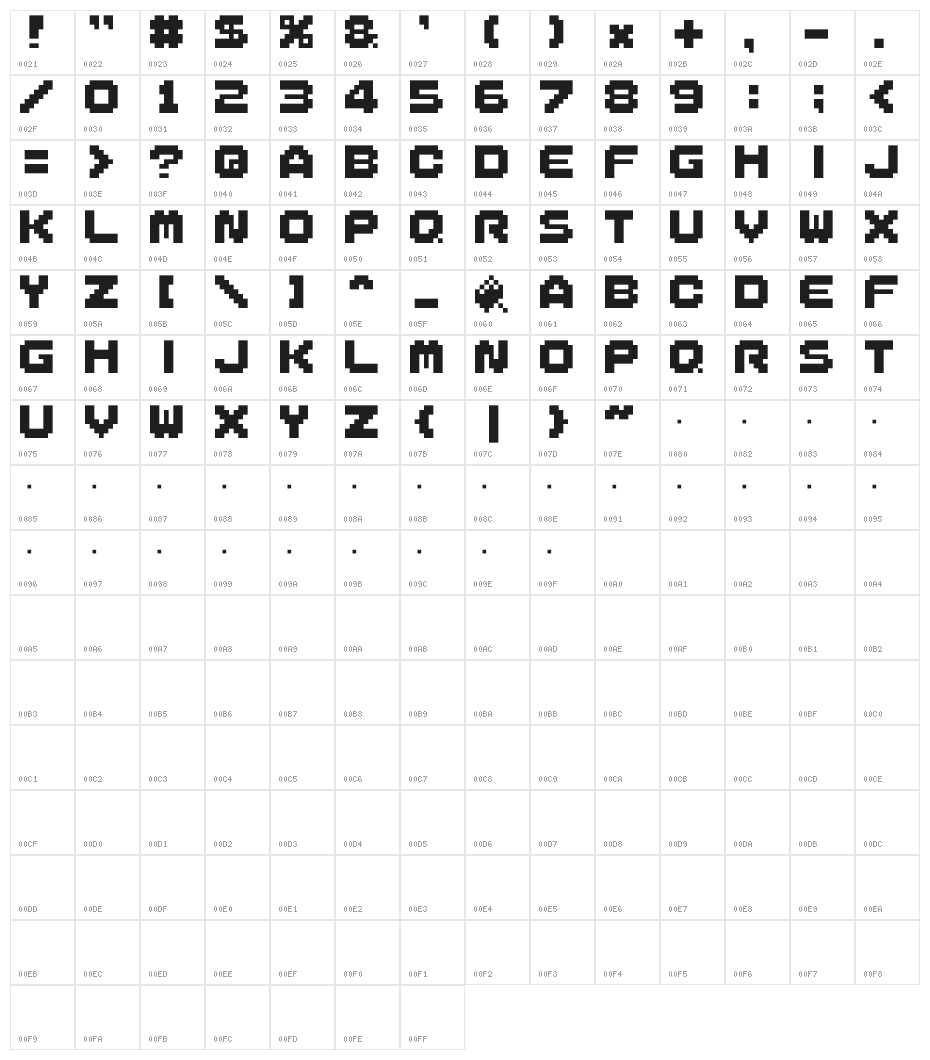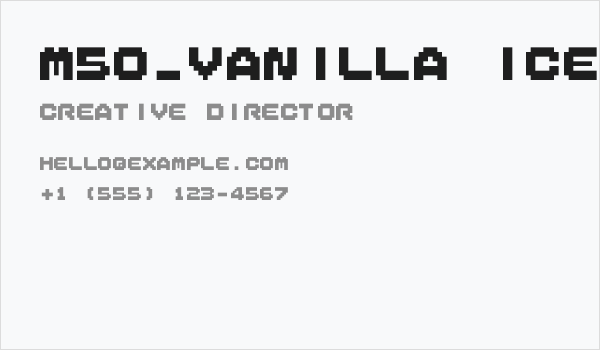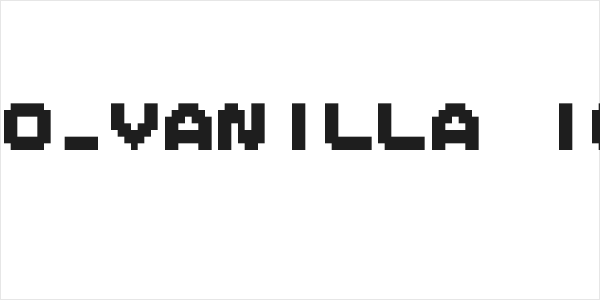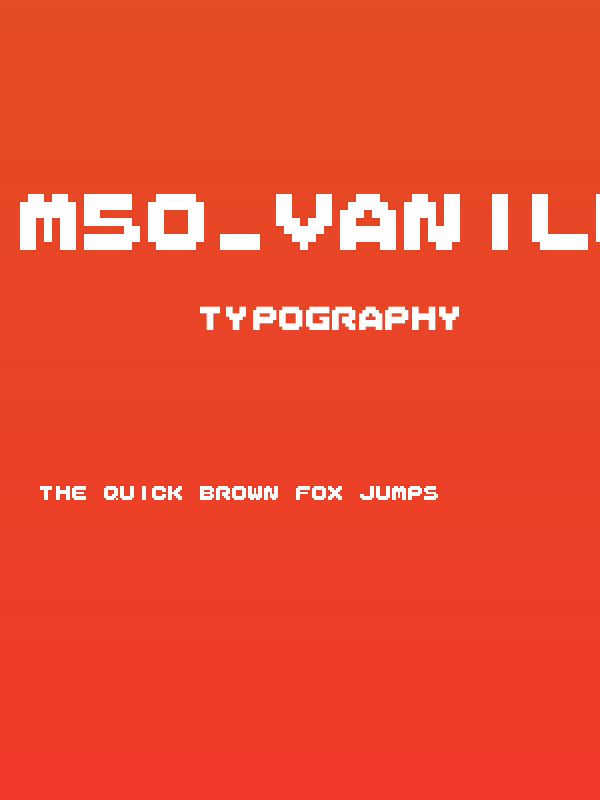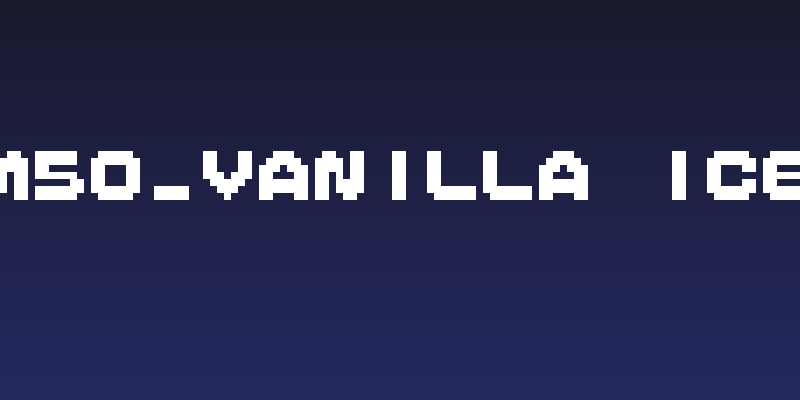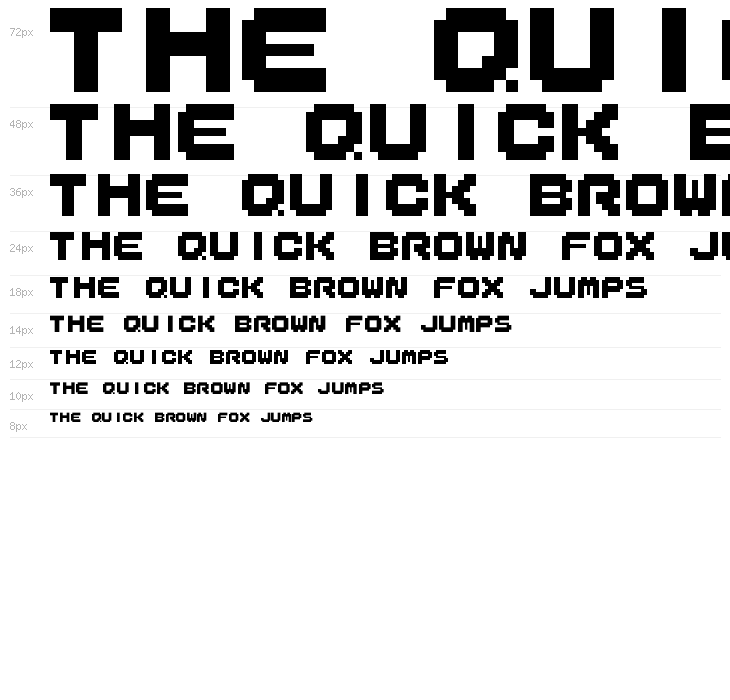
M50_VANILLA ICE Font
M50_VANILLA ICE Description
This font features a bold, pixelated design reminiscent of early digital or video game aesthetics. Each character is constructed with a blocky, grid-like structure, giving it a distinctly retro and technological feel. The uppercase and lowercase letters maintain a consistent height, contributing to a uniform appearance. The numerals and special characters follow the same pixelated style, ensuring cohesion across all glyphs. This font's unique style is perfect for projects that aim to evoke nostalgia or a digital theme, making it ideal for video game titles, tech-related branding, or any creative work that seeks to capture the essence of the digital age.
| Overall Style | Retro, Digital |
| Proposed Projects | Ideal for video game titles, tech branding, retro-themed designs, and digital art projects. |